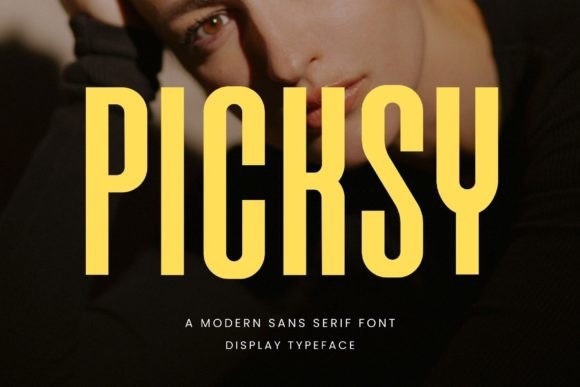
Introducing Picksy Font, the ultimate sans serif font family for fashion-forward designs. Created by the renowned Perfectype, this exquisite font boasts a modern and unique shape, crafting an effortlessly natural writing style. Unleash your creativity with Picksy's boundless versatility, effortlessly producing stunning typographic designs that captivate and inspire.
Embark on a creative journey with Picksy. Whether crafting captivating branding, sleek web designs, or captivating editorials, this font family rises to every occasion. Its elegance transcends mediums, seamlessly adorning prints, crafts, and heartfelt quotes. Allow your imagination to flourish as you create logotypes that command attention, wedding invitations that evoke romance, and labels that exude sophistication. Transform names into exquisite works of art, design packaging that captivates, and let your most creative ideas come alive.
Experience the transformative power of Picksy, seamlessly integrating into your design arsenal. Watch as your concepts blossom into reality, infused with an air of effortless grace and timeless allure. Elevate your designs beyond the ordinary, captivating your audience with every stroke of this remarkable font. Discover the endless possibilities that await with Picksy, your gateway to design brilliance.